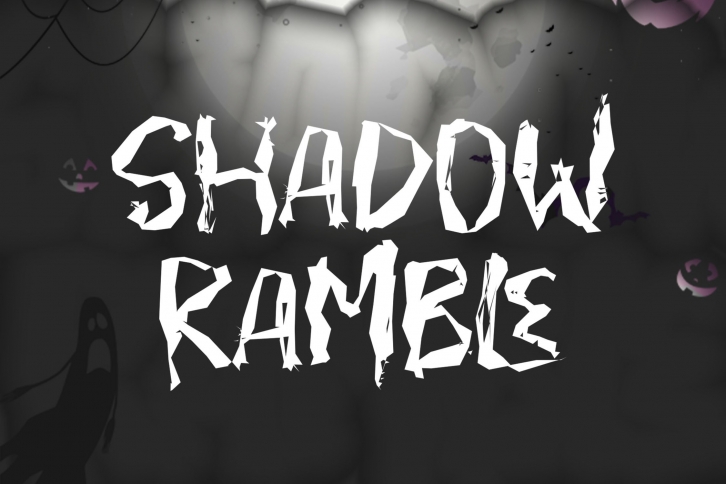
SHADOW RAMBLE is a great font that was designed by NTC Graphic. Imagine the amount of combinations you can create using this font! The archive is 3.70 MB and it was released on September 28, 2021. SHADOW RAMBLE looks beautiful on wedding invitations, greeting cards, logos, posters, labels, t-shirt designs, logos, business cards and is perfect for use in ink or watercolor works, fashion, magazines, packaging and food menus, children's books and more!